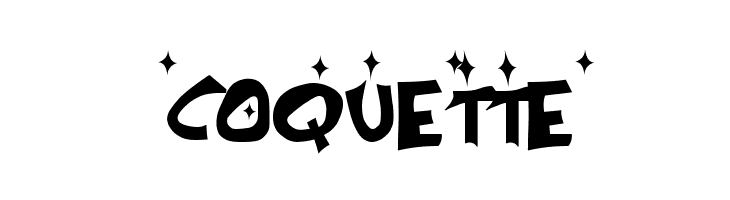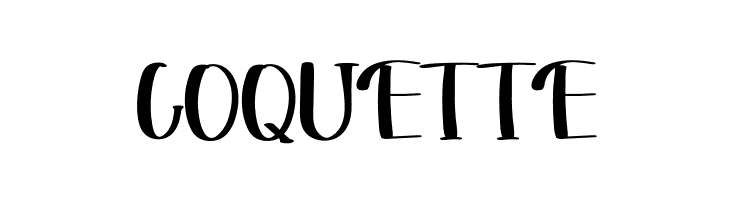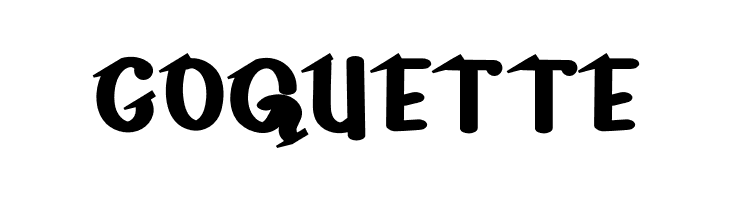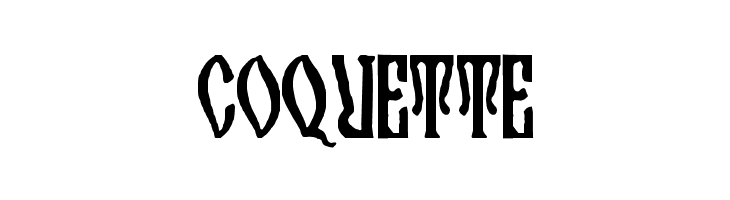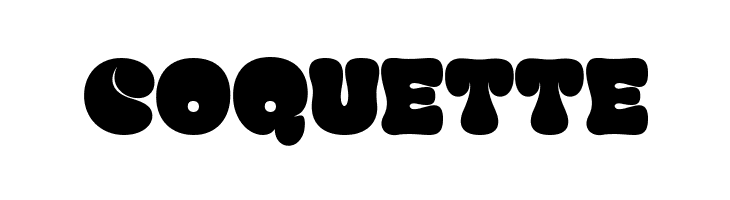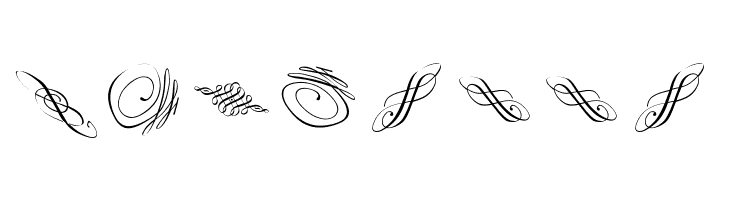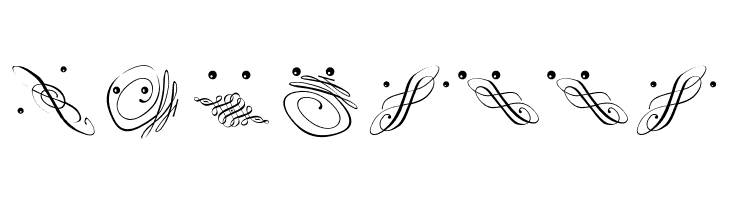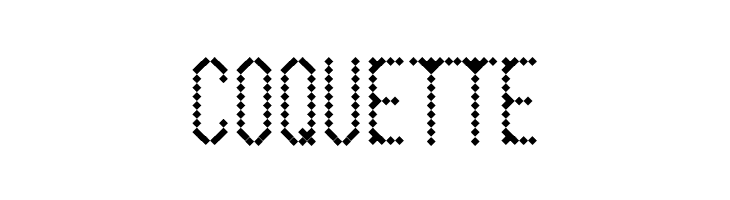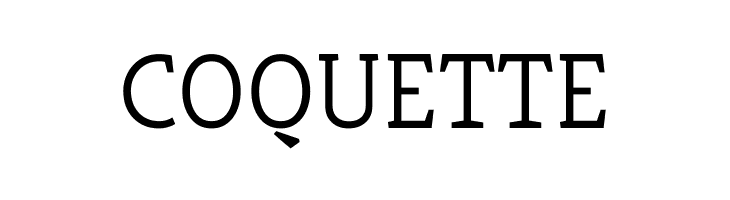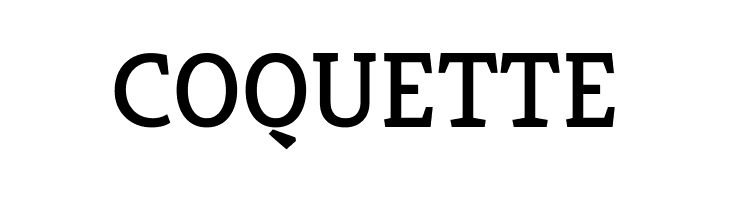
A decorative, Gothic-inspired font with bold, angular characters.
An elegant serif font with high contrast and Cyrillic influences.
A bold, geometric font with angular, architectural elements.
A bold, high-contrast font with sharp angles and distinct serifs.
An ornate and decorative font with intricate flourishes and a regal appearance.
A bold, playful font with rounded, bubbly characters perfect for retro designs.
A bold, geometric font with a futuristic and industrial aesthetic.
A bold, geometric, and condensed font ideal for impactful headlines.
A bold, geometric font with a dynamic slant and thick strokes.
A modern, light serif font with elegant proportions and excellent readability.
A modern serif font with a balanced and versatile design.
A modern, geometric font with smooth curves and balanced spacing.
A bold, dynamic font with modern calligraphic influences and playful lowercase characters.
A playful and casual script font with fluid, connected letterforms.
A hand-drawn, artistic font with elongated, irregular strokes and a playful appearance.
A bold, playful font with rounded, bubbly characters and a retro vibe.
An artistic and decorative font with intricate loops and swirls.
An artistic, decorative font with intricate swirls and loops.
A playful, bold, and whimsical font with hand-drawn, irregular strokes.
A whimsical, bold font with playful, star-like embellishments.
A festive, decorative font featuring Santa Claus and holiday elements.
Hand-drawn holiday icon dingbat font.
A festive, Christmas-themed decorative font with playful holiday motifs.
A playful and energetic script font with bold, flowing strokes.
An elegant and decorative script font with flowing, interconnected letterforms.
A bold, flowing script font with elegant curves and dynamic style.